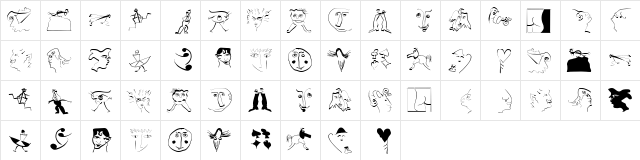
VisualObsessions Regular
Design Context for VisualObsessions Typeface
VisualObsessions is a composed and adaptable typeface that performs quietly and consistently across a wide range of design contexts.